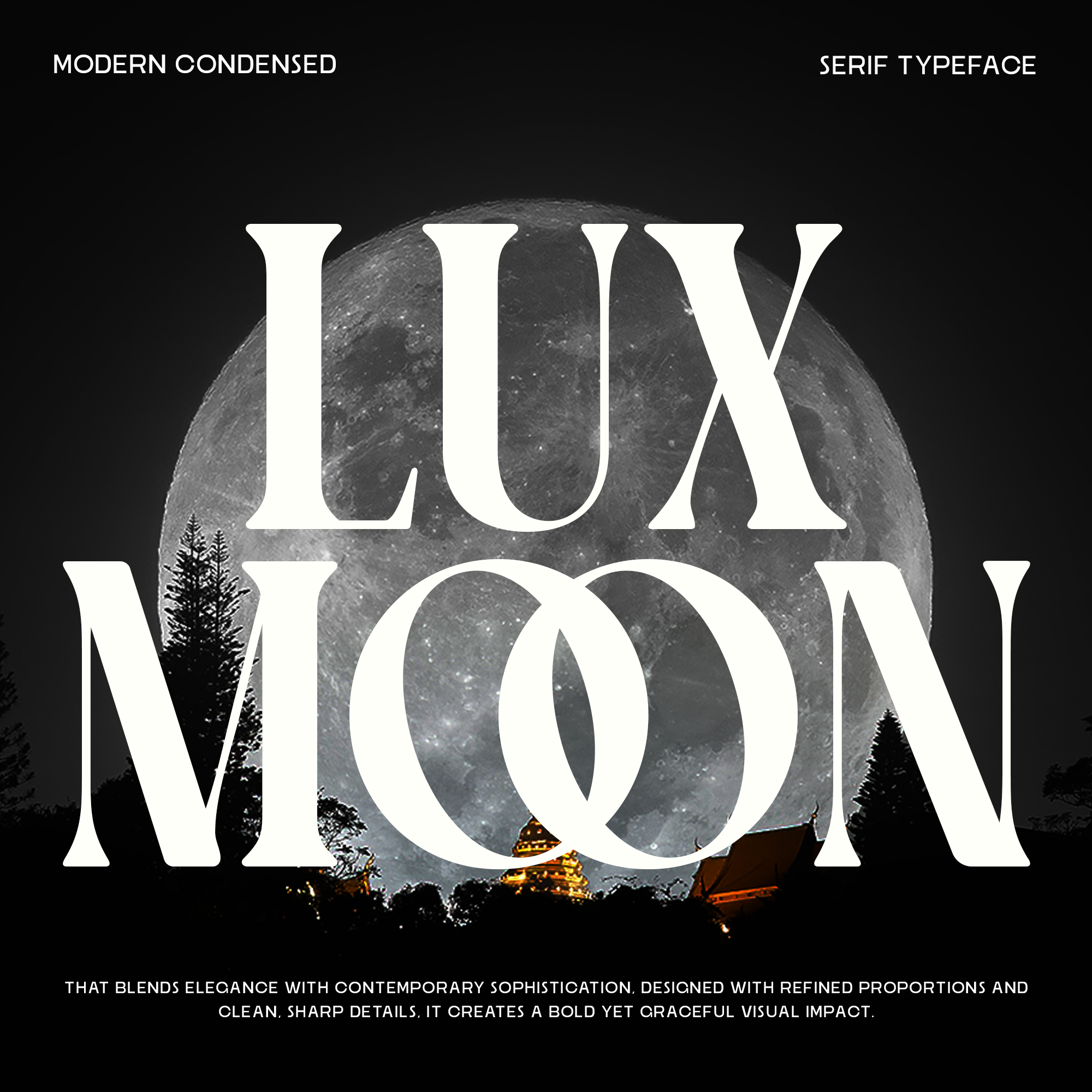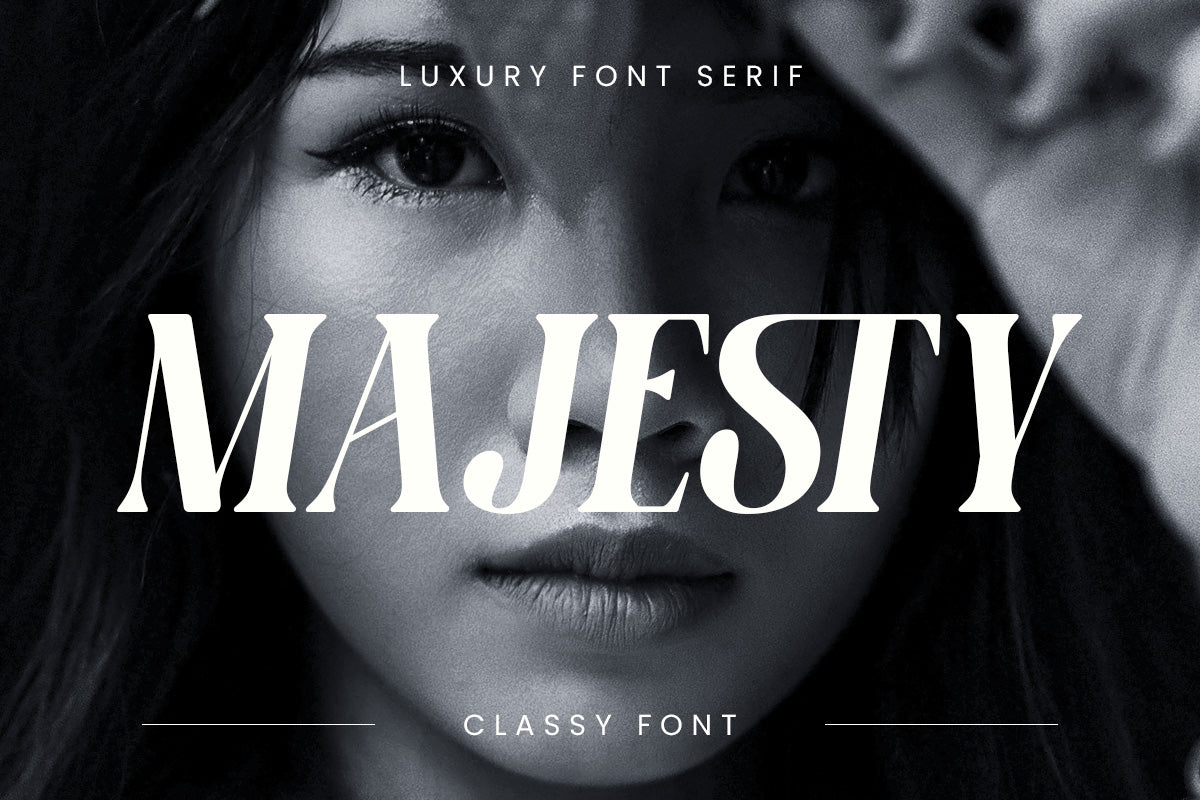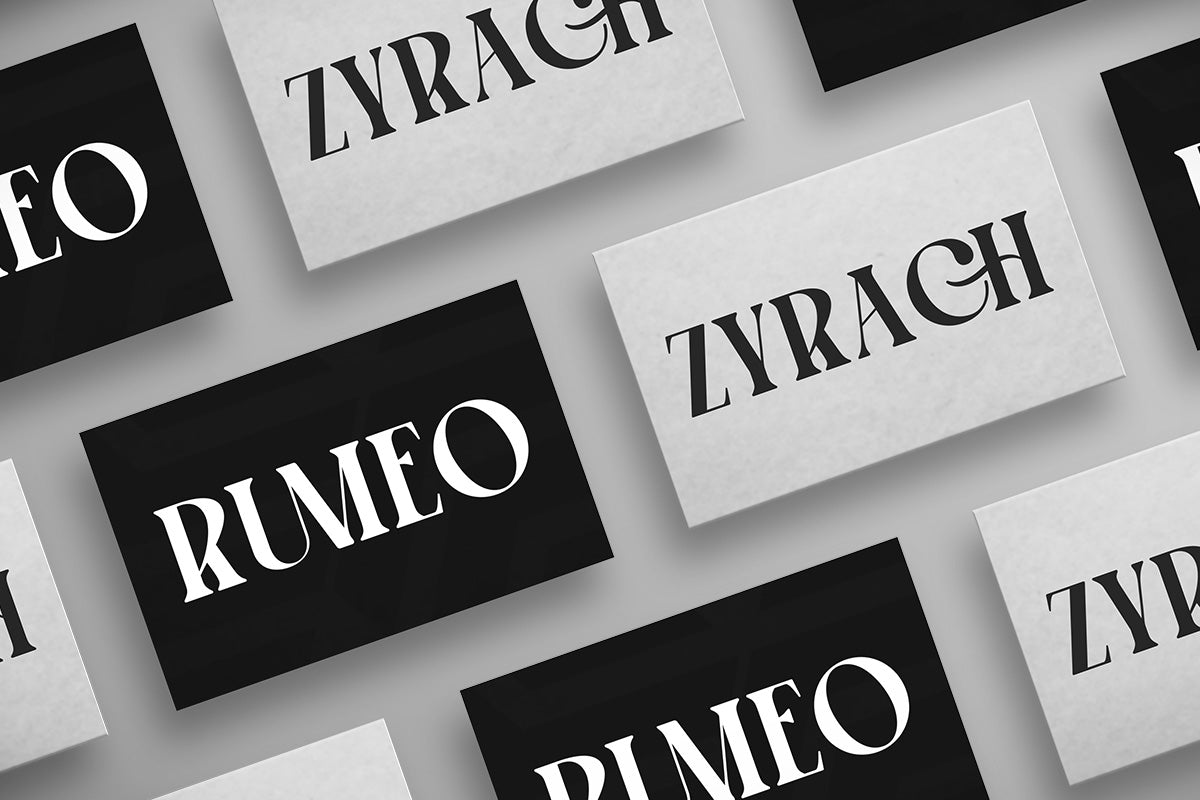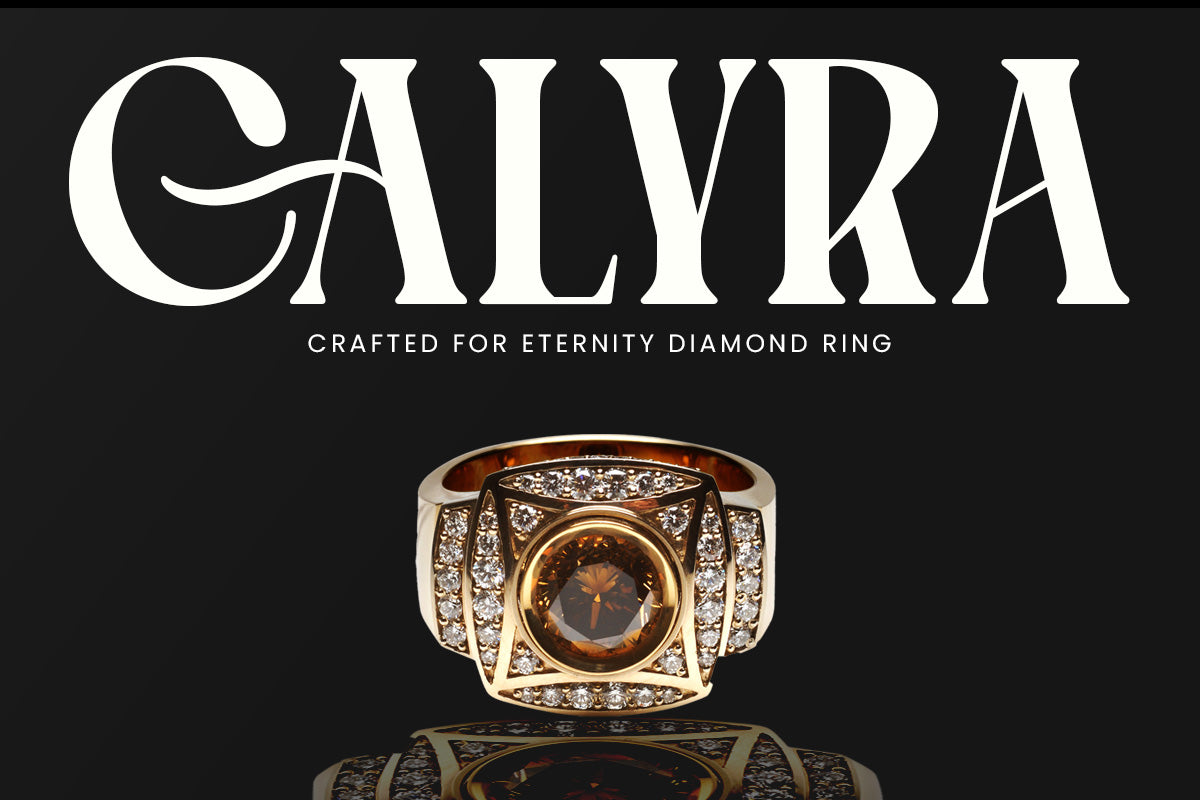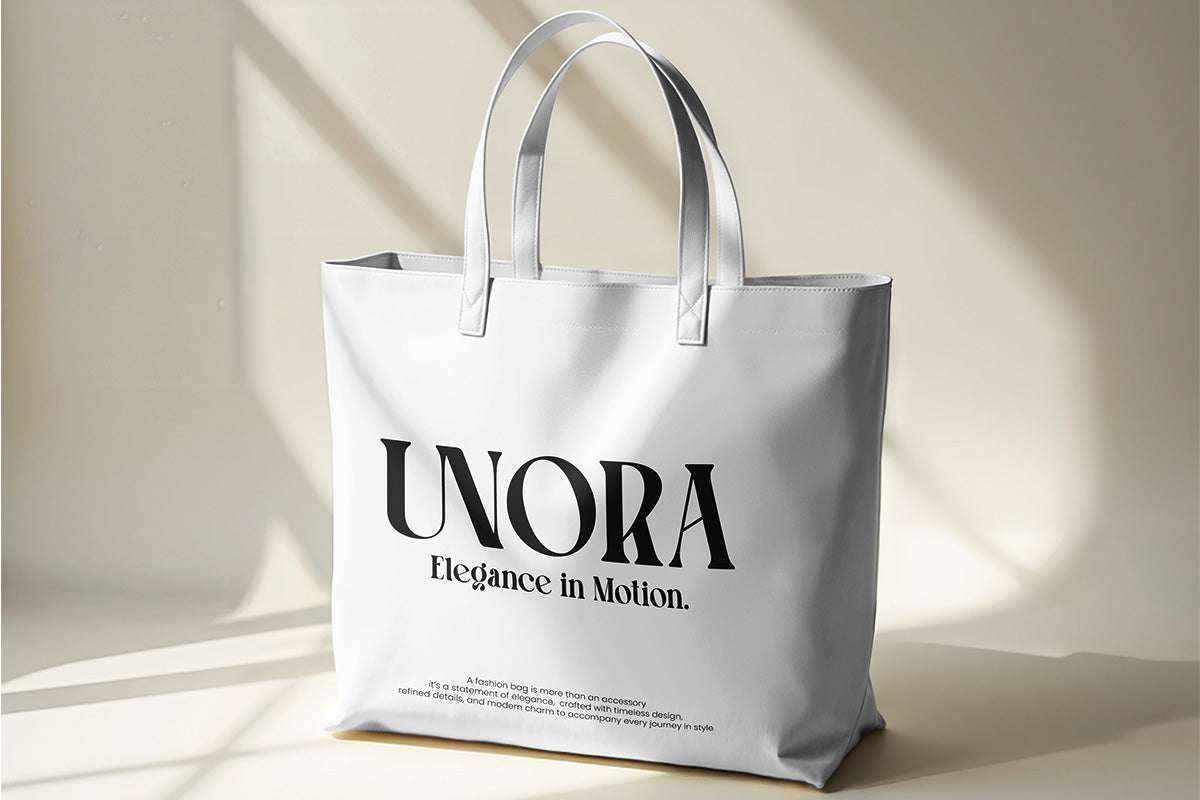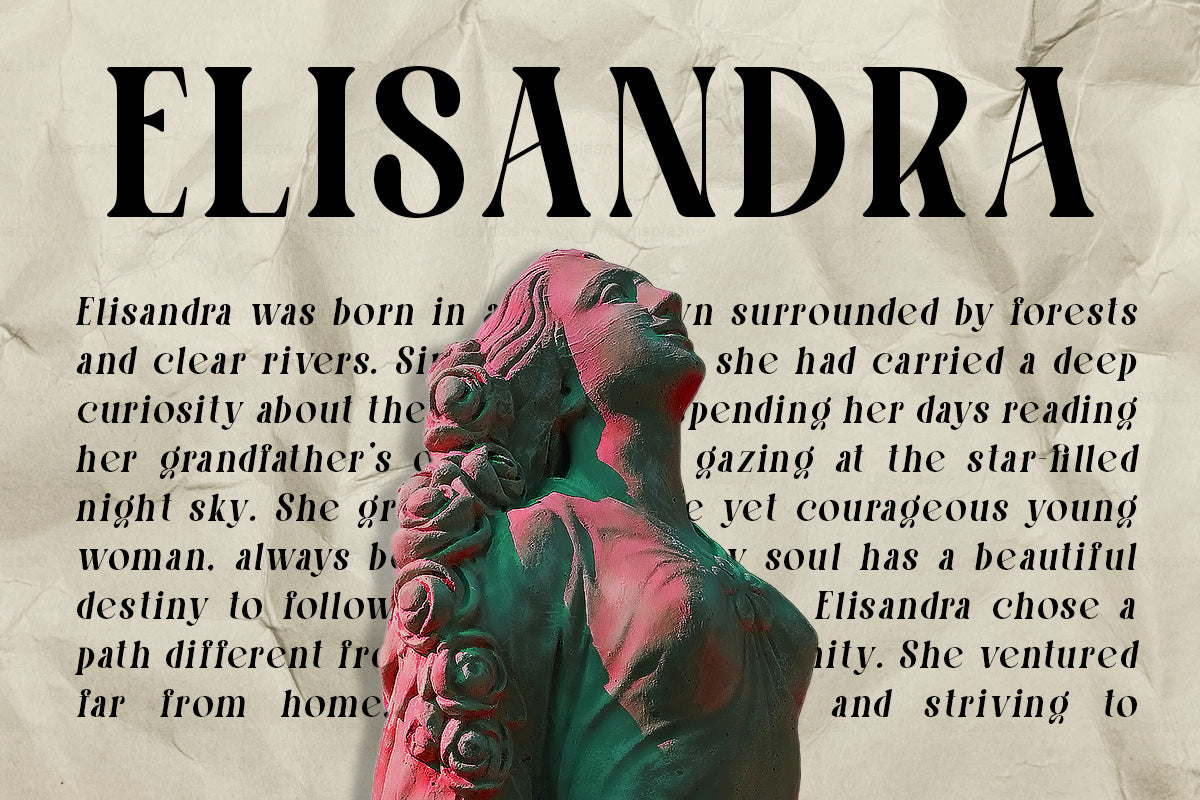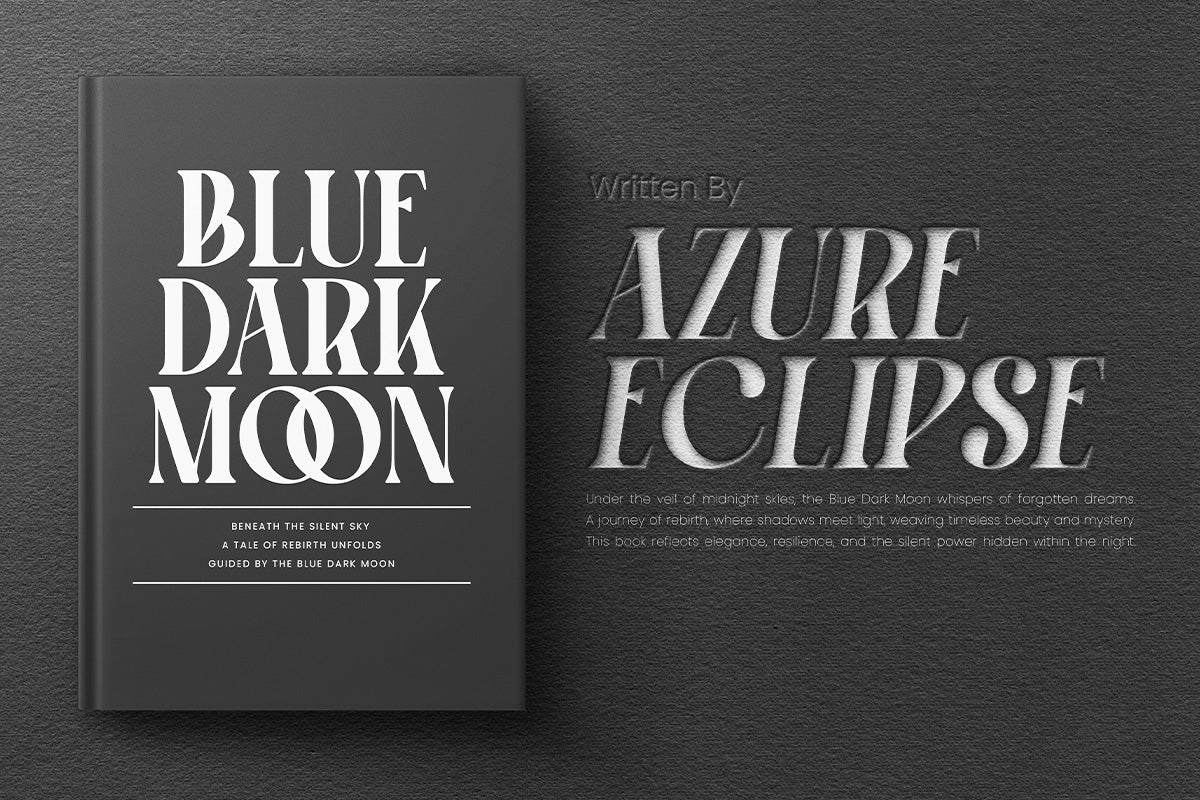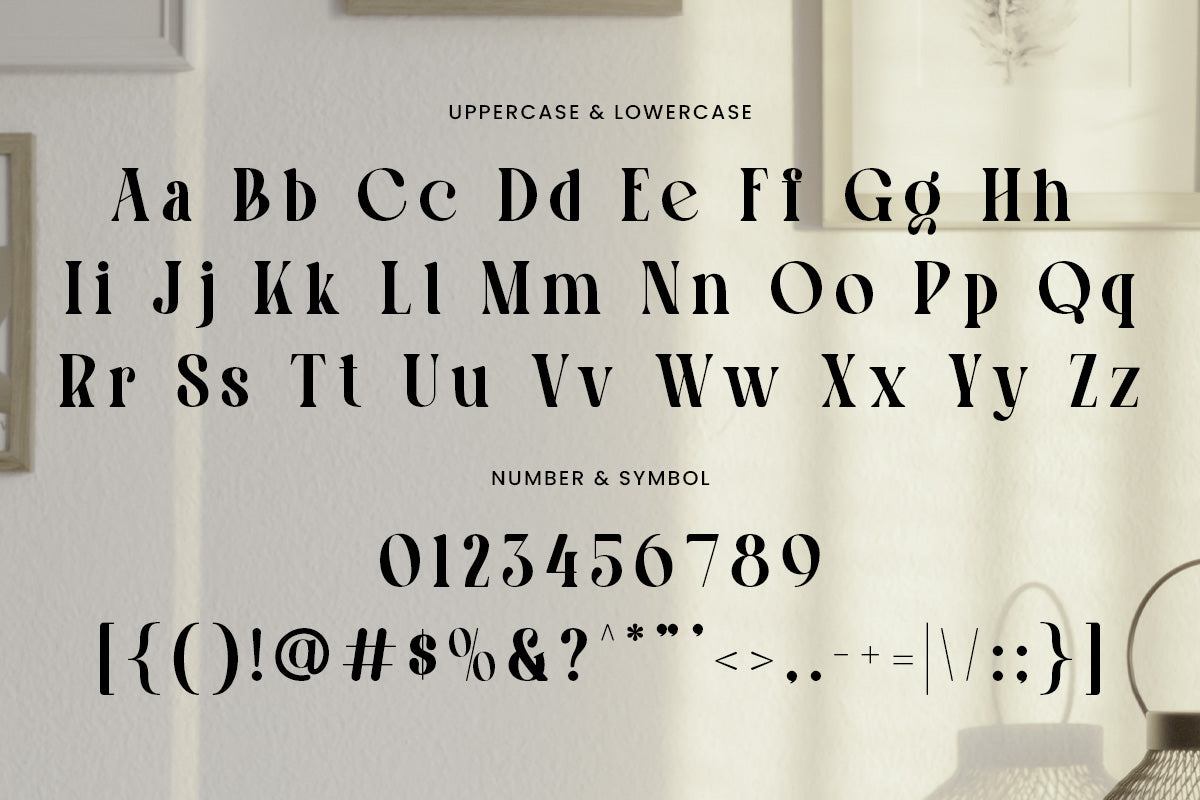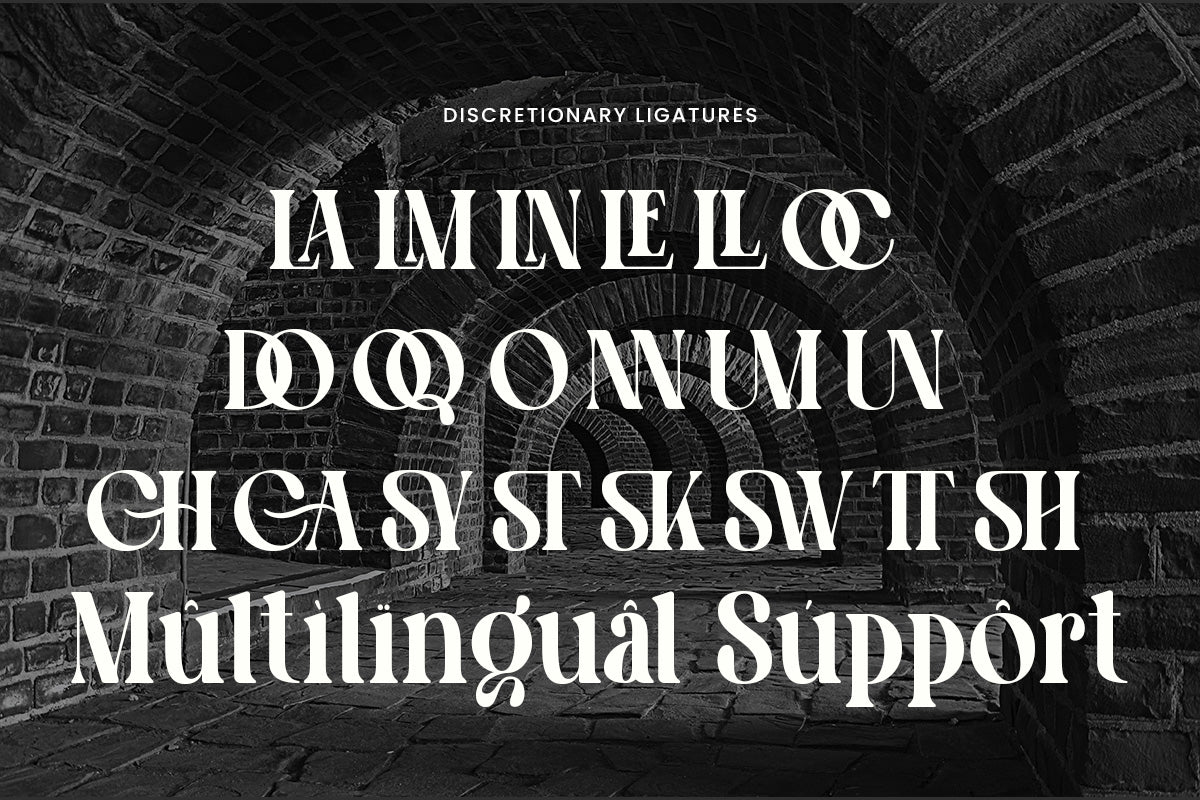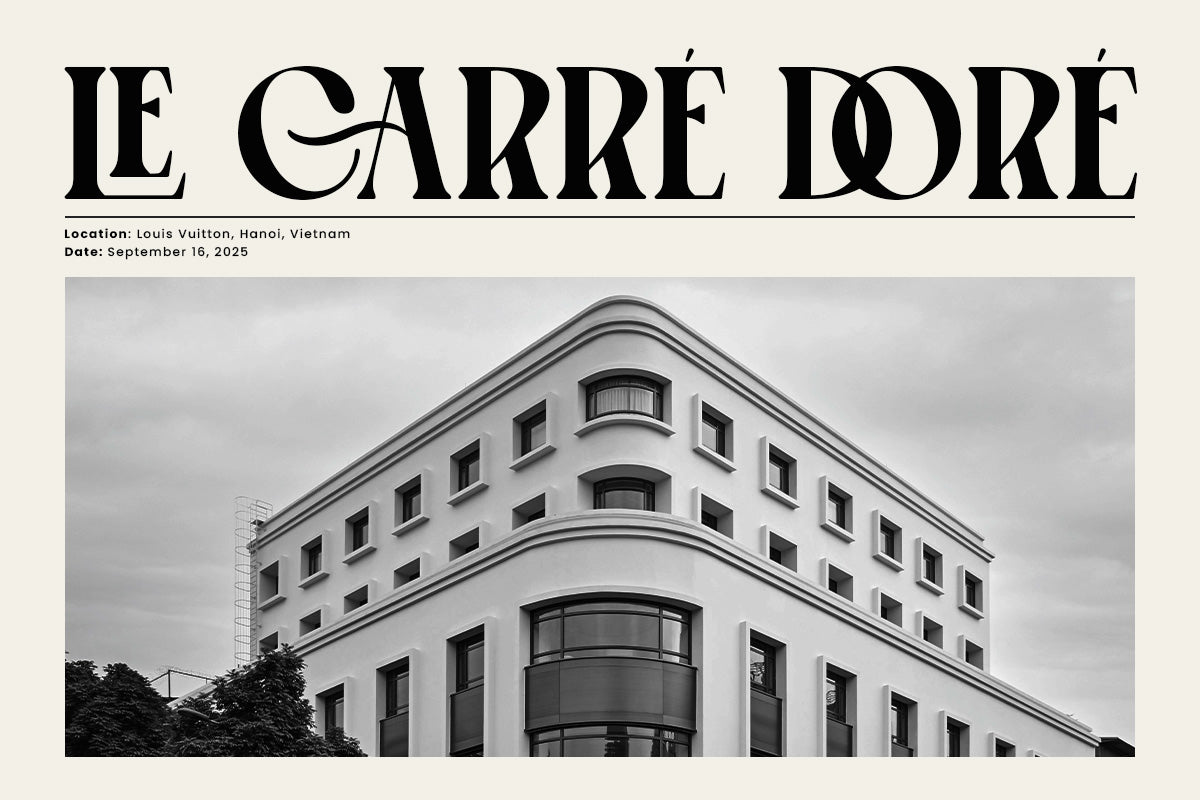
Luxmoon – Bold Condensed Serif Typeface
Luxmoon is a modern condensed serif typeface that gracefully merges timeless elegance with a bold contemporary edge. Designed to make a strong visual statement while maintaining refined sophistication, Luxmoon captures the essence of modern luxury through carefully crafted letterforms. Featuring refined proportions, balanced kerning, and a harmonious contrast between smooth curves and sharp details, Luxmoon delivers a powerful yet graceful presence. Its condensed structure allows for impactful typography without sacrificing readability, making it ideal for layouts that demand both efficiency and elegance. Luxmoon excels across a wide range of design applications. From high-end branding and editorial layouts to logos, social media visuals, packaging, posters, invitations, and wedding projects, this typeface adapts beautifully to both large-scale headlines and refined typographic compositions. Its confident character adds authority and charm, while its subtle details elevate every design it touches.